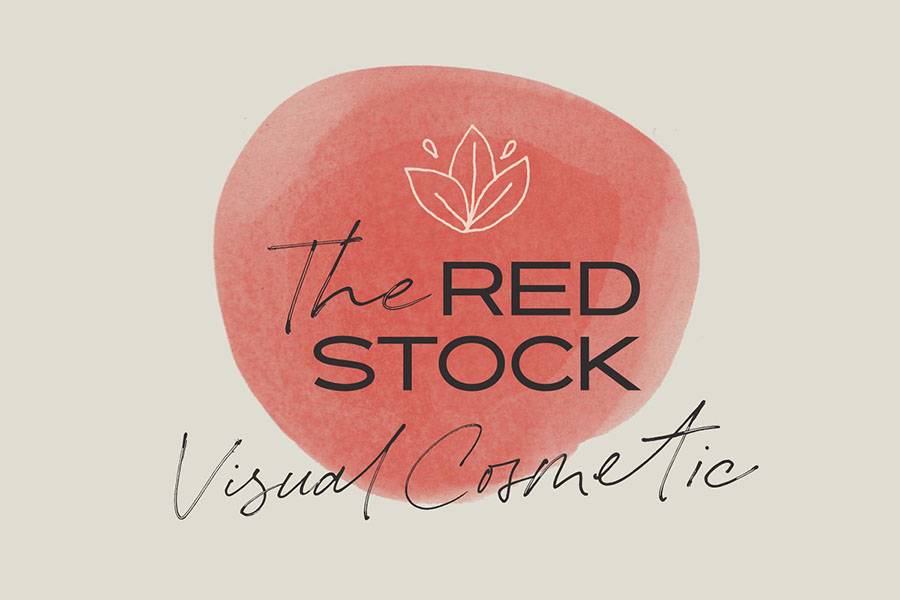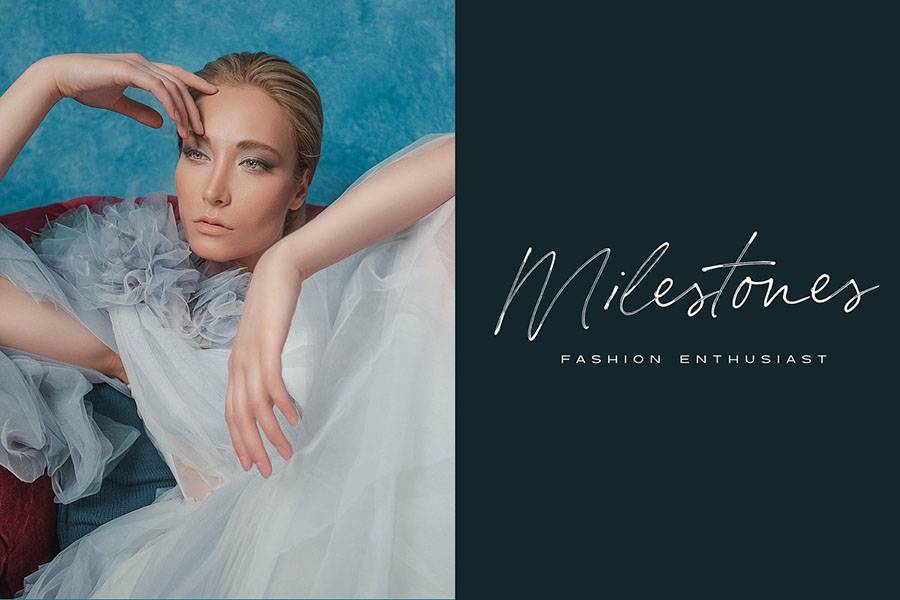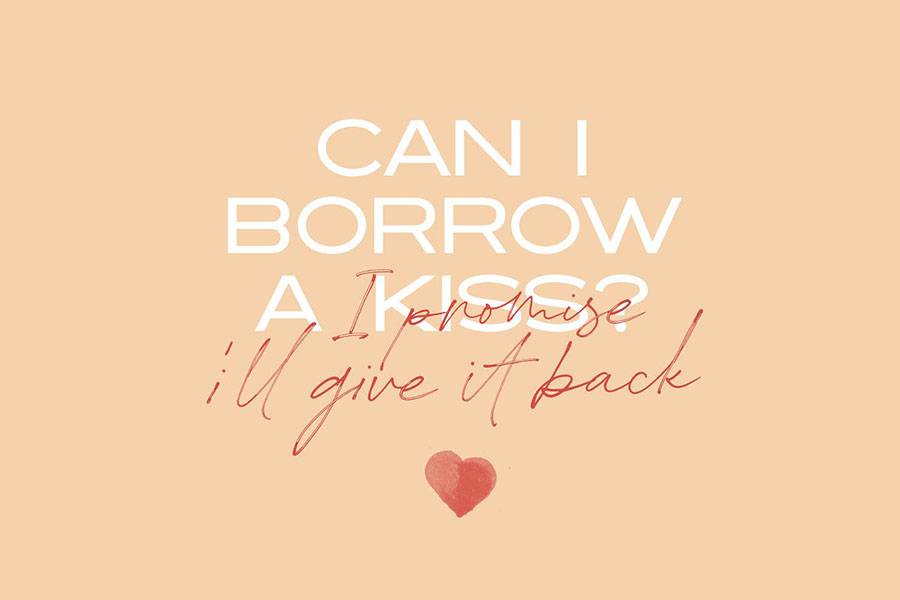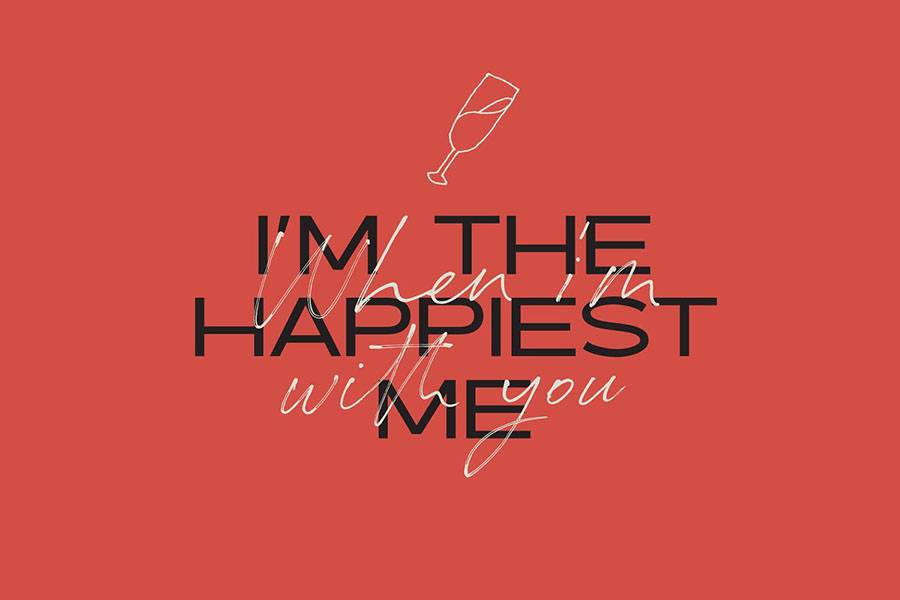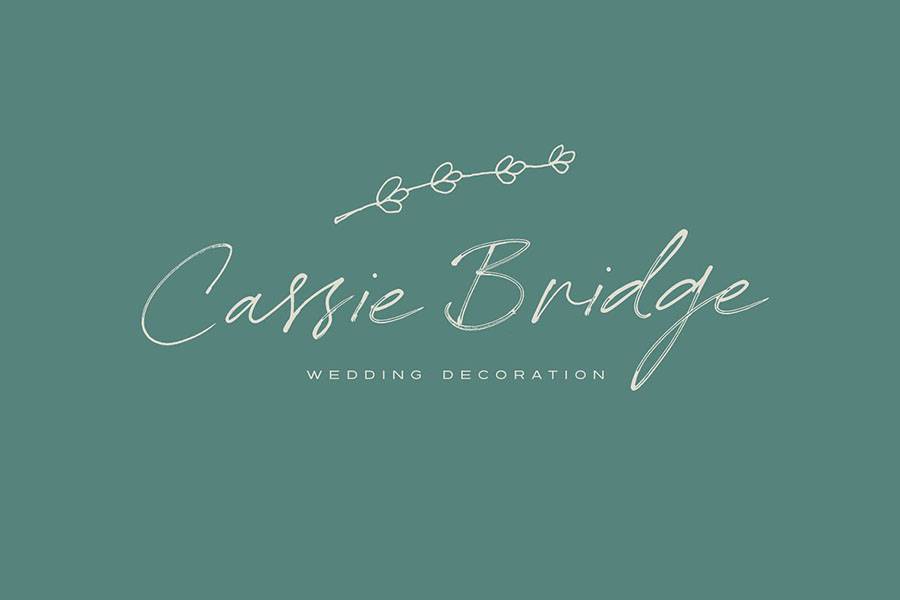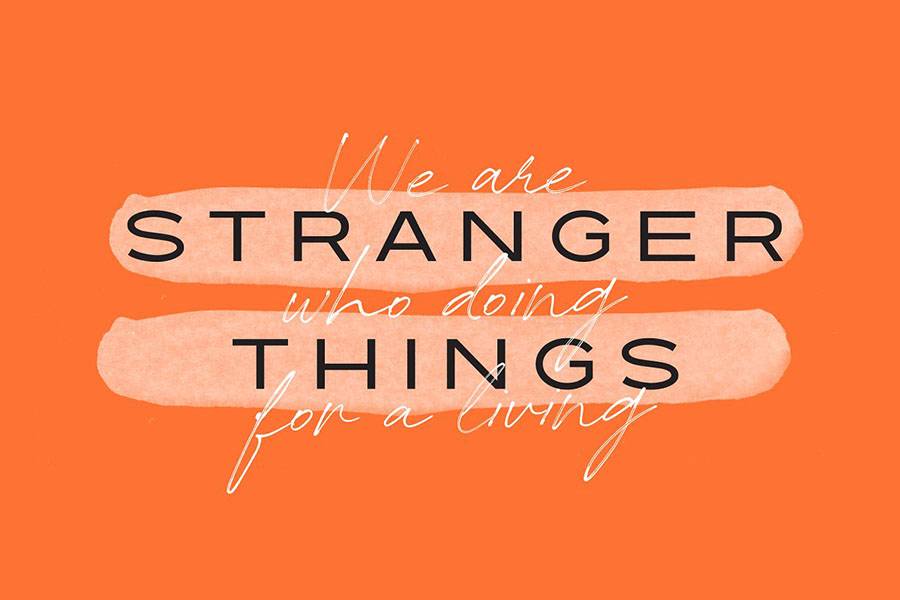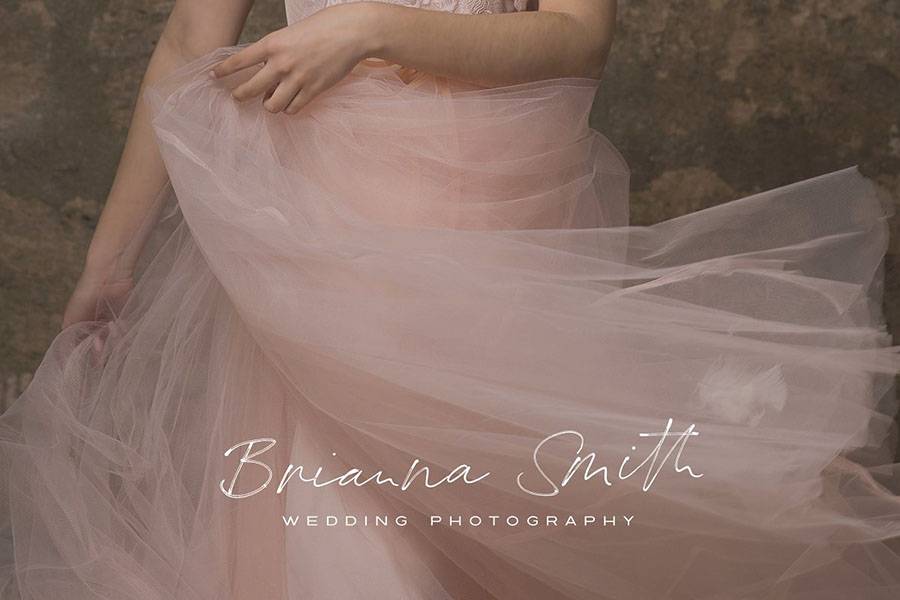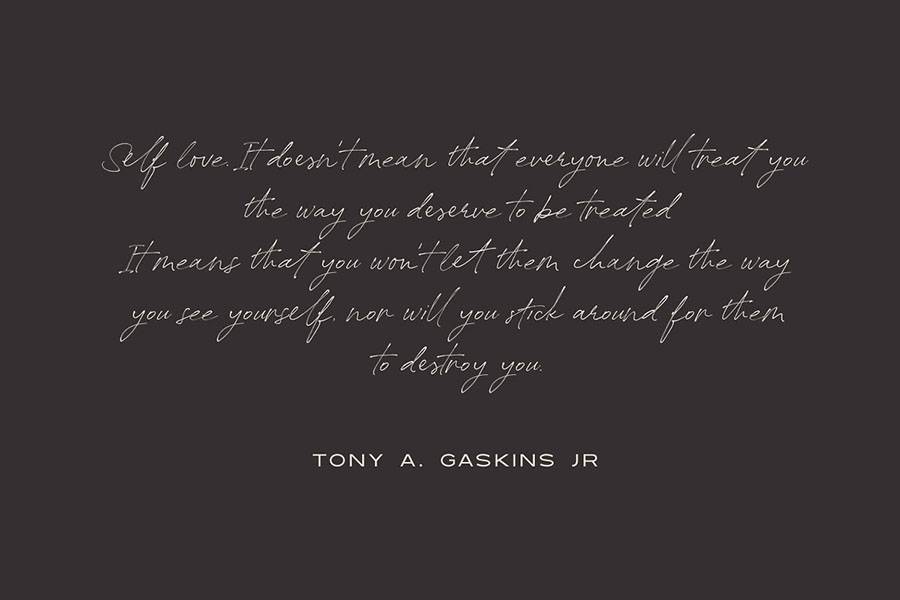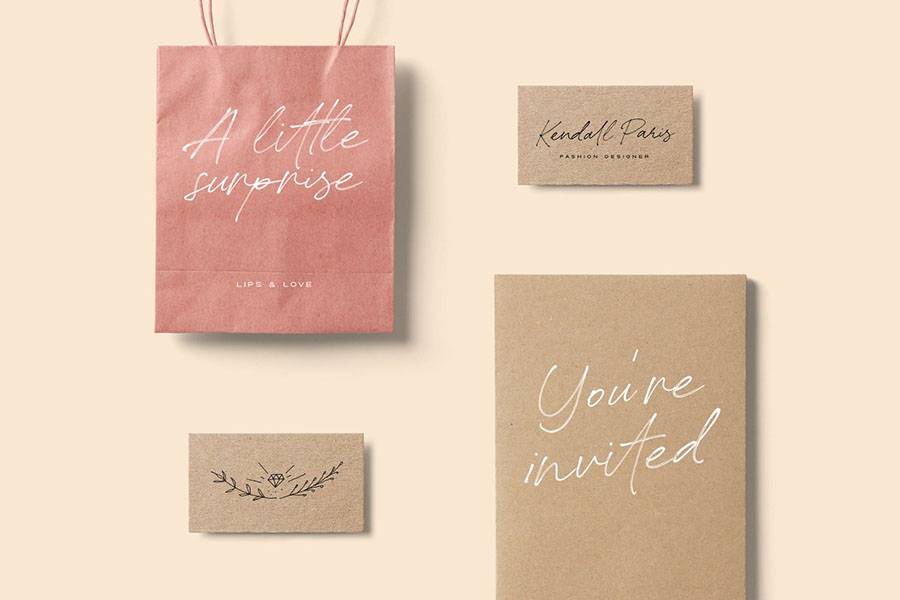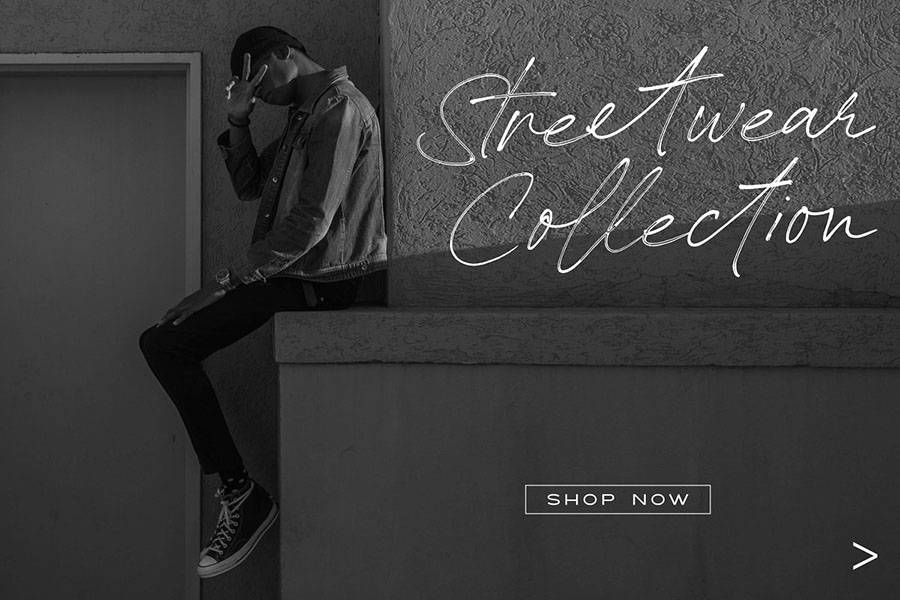
The Redstock Handwritten Font is a delicate, elegant script with a natural, flowing style that mimics authentic handwriting. Its fine strokes and slightly irregular lines give it a personal and artistic touch, making it perfect for creative projects, invitations, and branding that want to evoke a sense of warmth and individuality. This font works best in designs that seek a casual yet refined feel, adding a sophisticated charm without feeling overly formal.
The Redstock Handwritten Font
About The Redstock Handwritten Font
| Font family | The Redstock Handwritten Font |
| Release date | 2019-07-09 |
| Designer | Konstantine Studio |